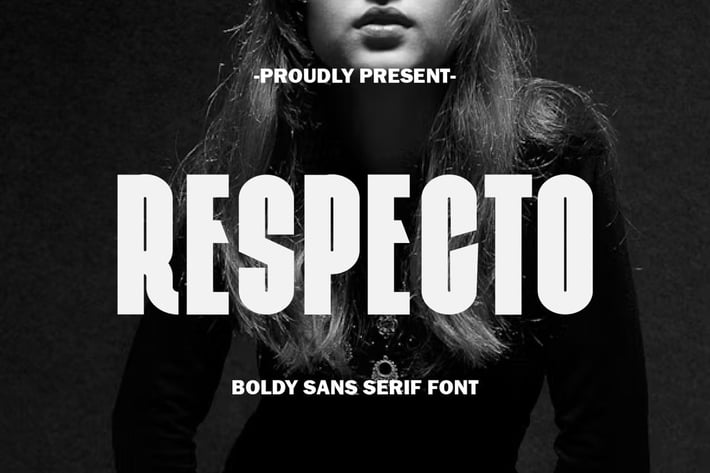
Respecto – Modern Bold Sans Serif Display Font
Respecto is a modern bold sans serif display font built for clarity, strength, and versatility. Its confident structure and clean letterforms make it an ideal choice for branding, headlines, advertising, and web interfaces where bold presence is key.
Whether you're creating a tech-forward brand or a high-impact visual layout, Respecto delivers modern energy with minimal effort.
Key Features:
- Strong and clean sans serif style
- Perfect for headlines, logos, and digital design
- Modern letterforms with excellent readability
- Great for branding, UI, and presentations
- Uppercase, numerals, and punctuation
- Carefully spaced and professionally kerned
Respecto empowers your designs with bold confidence and a modern voice.
Elevate your designs with Respecto – a strong, modern, and bold sans serif display font for impactful branding and beyond.